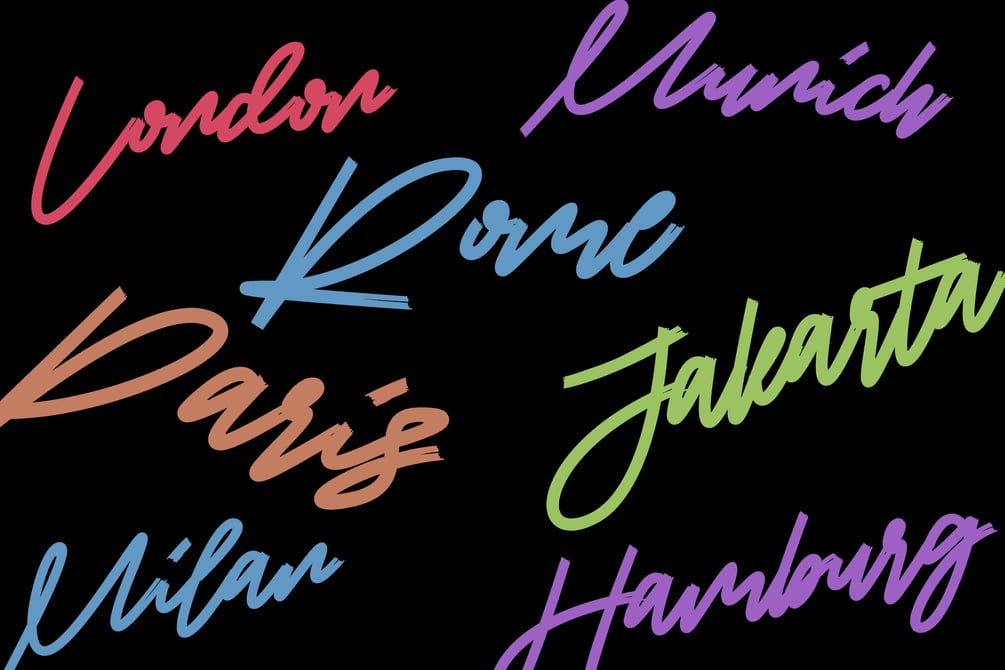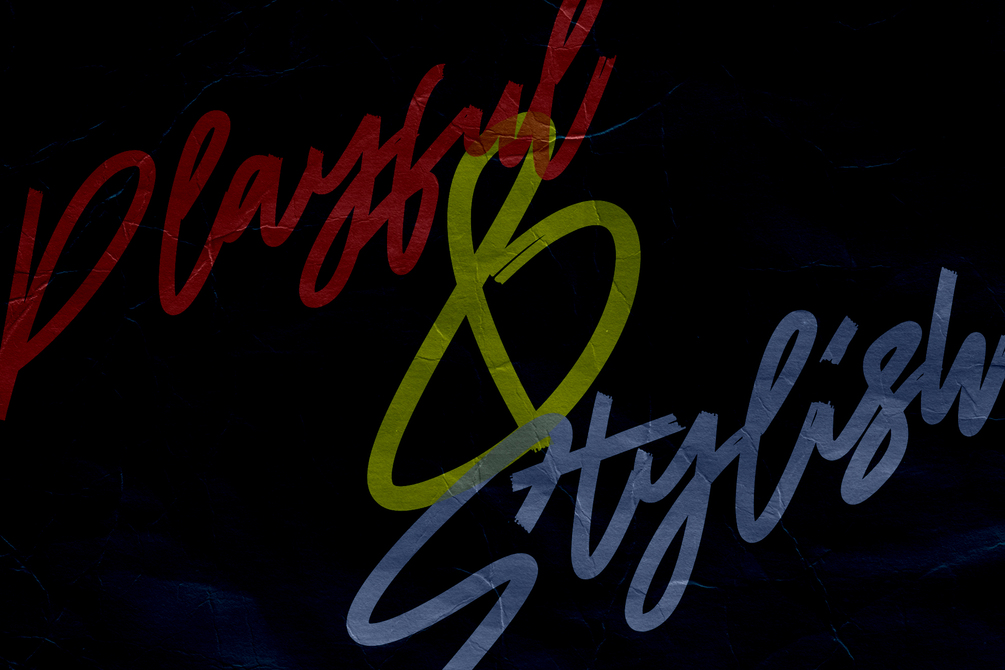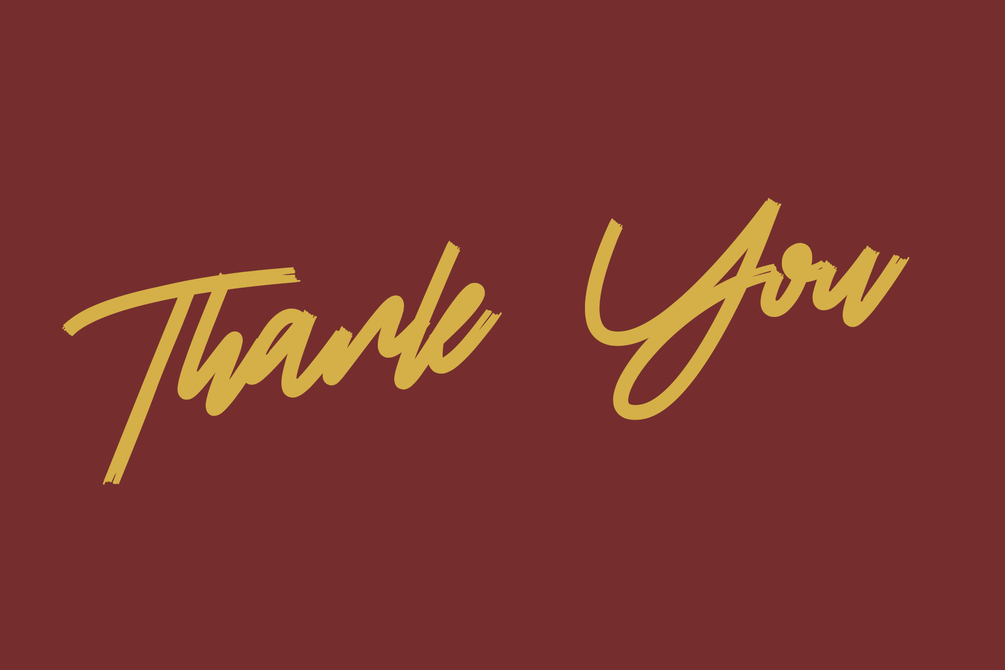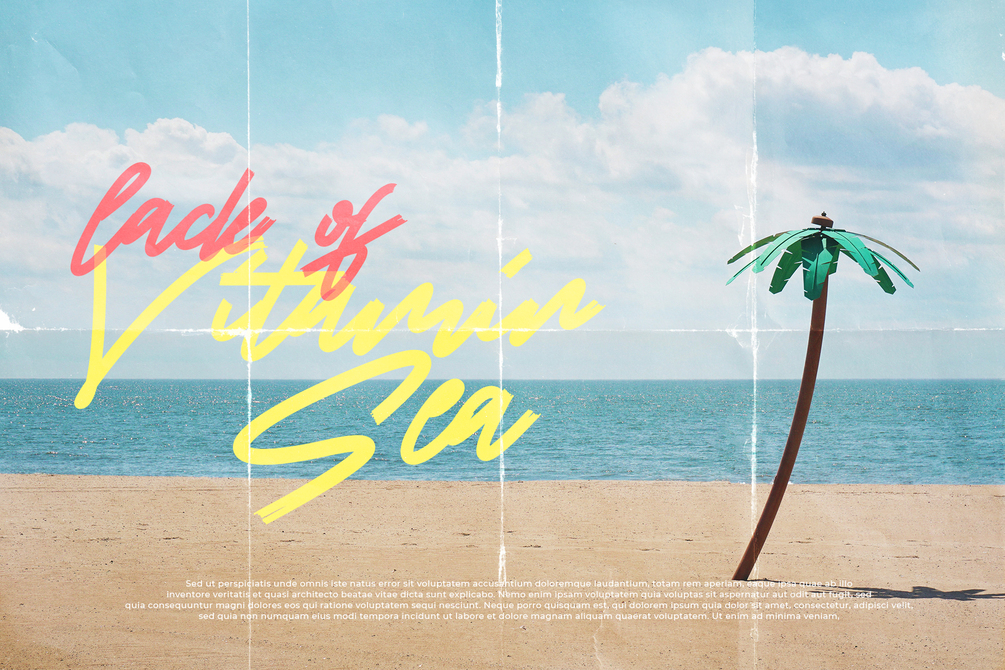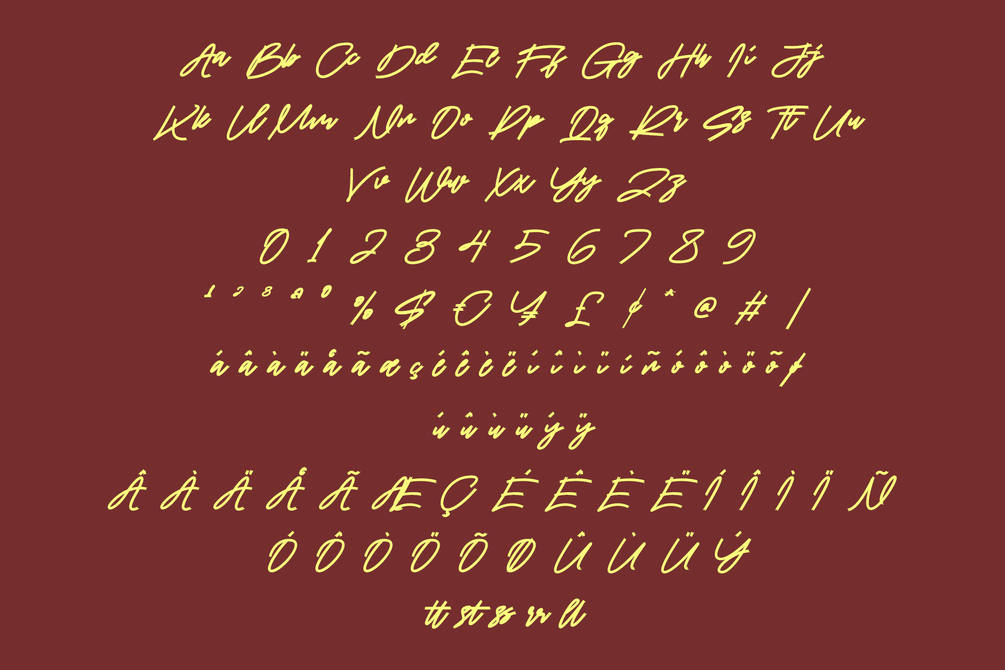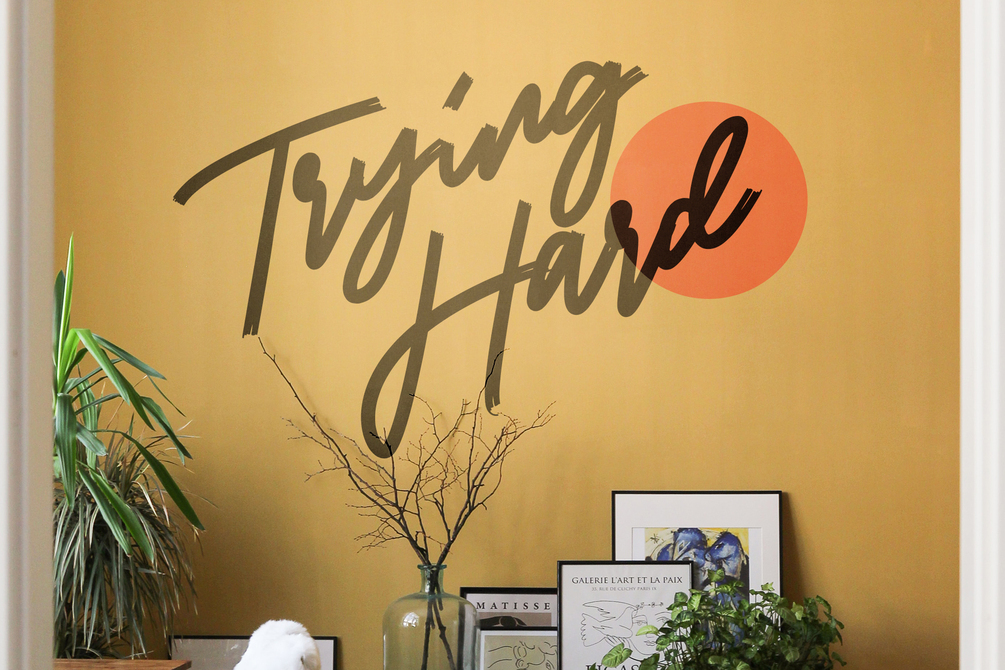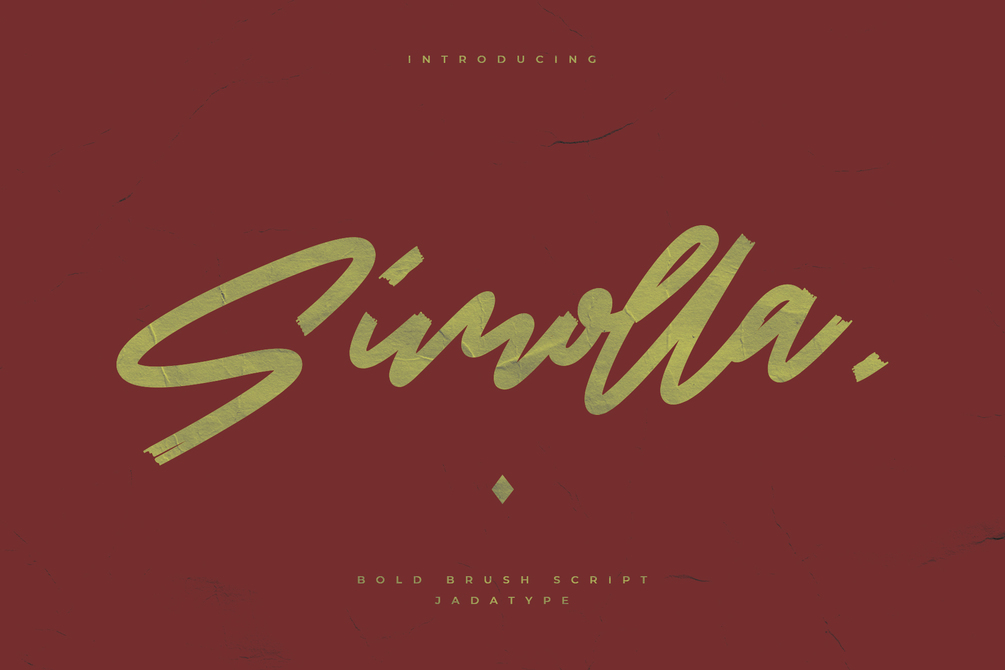
Simolla Font
Simolla is a script font that comes with a bold brush style. suitable for posters, tshirt, website, social media, book, movie and so on. contains standard English letters, numbers, punctuation, and several accents that support multilingualism.